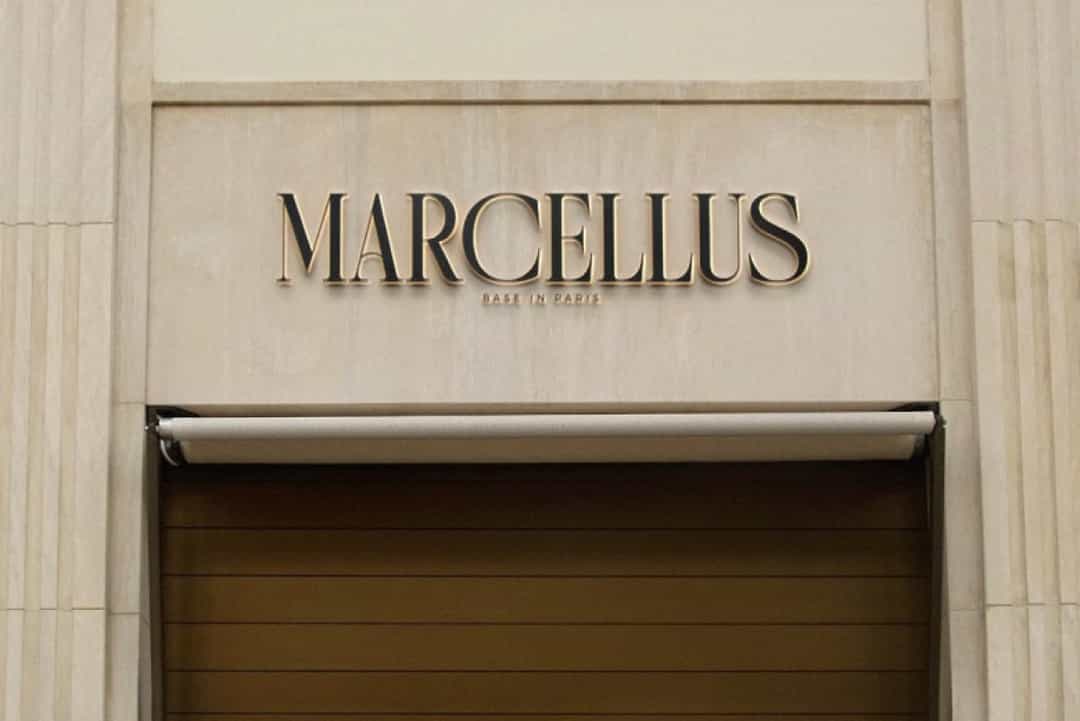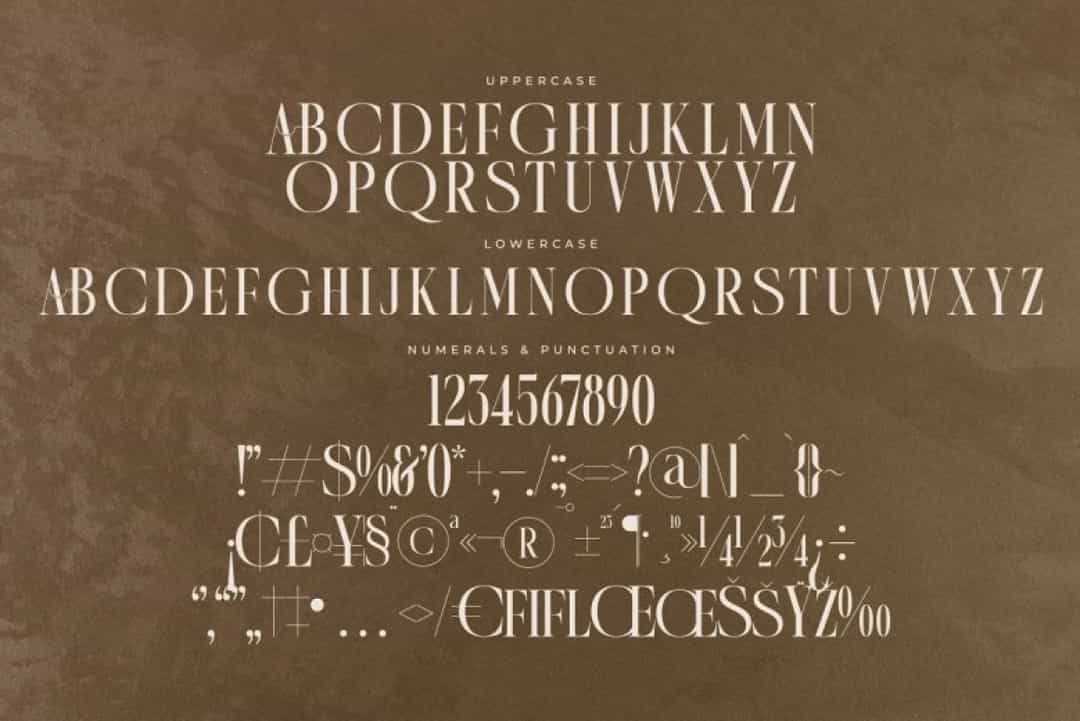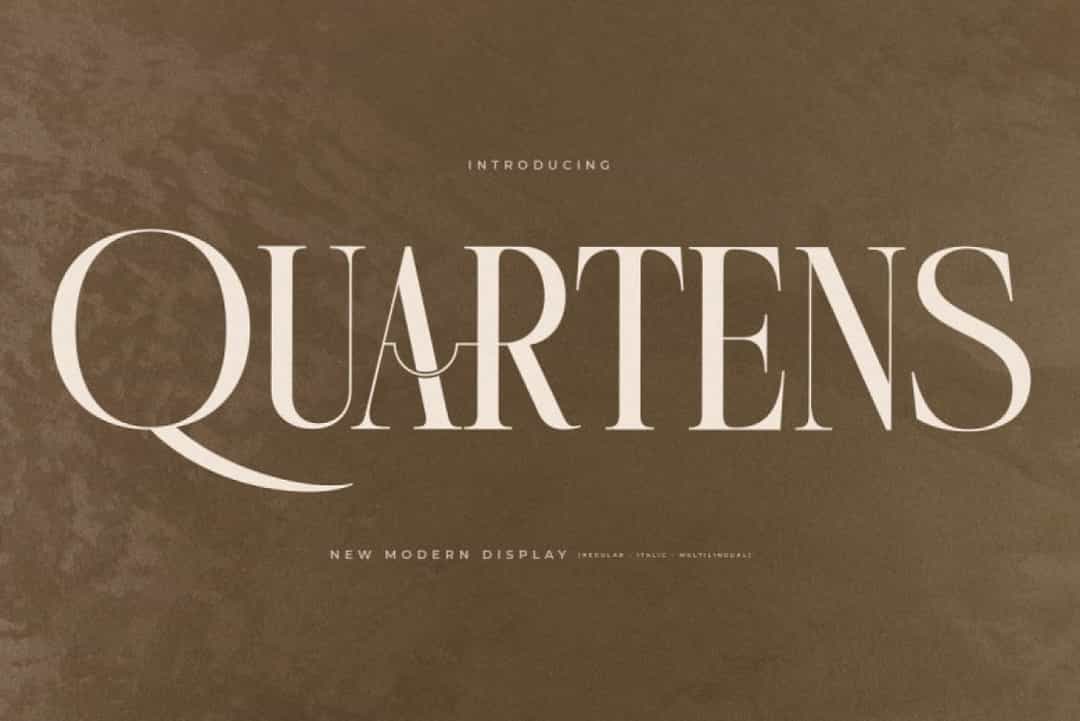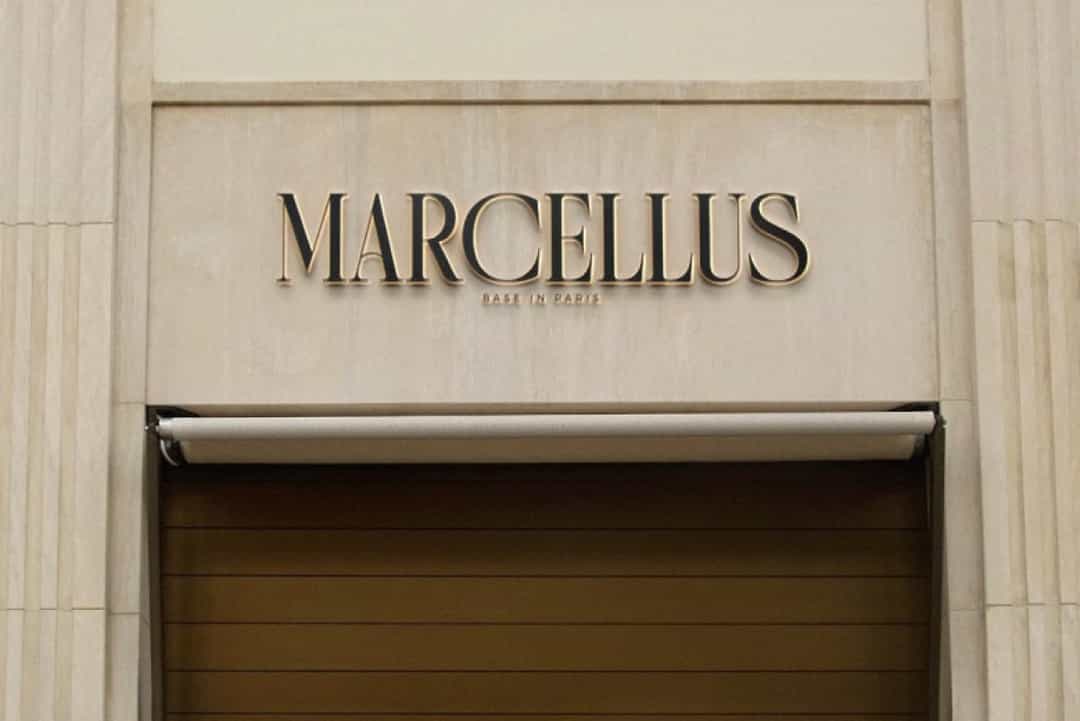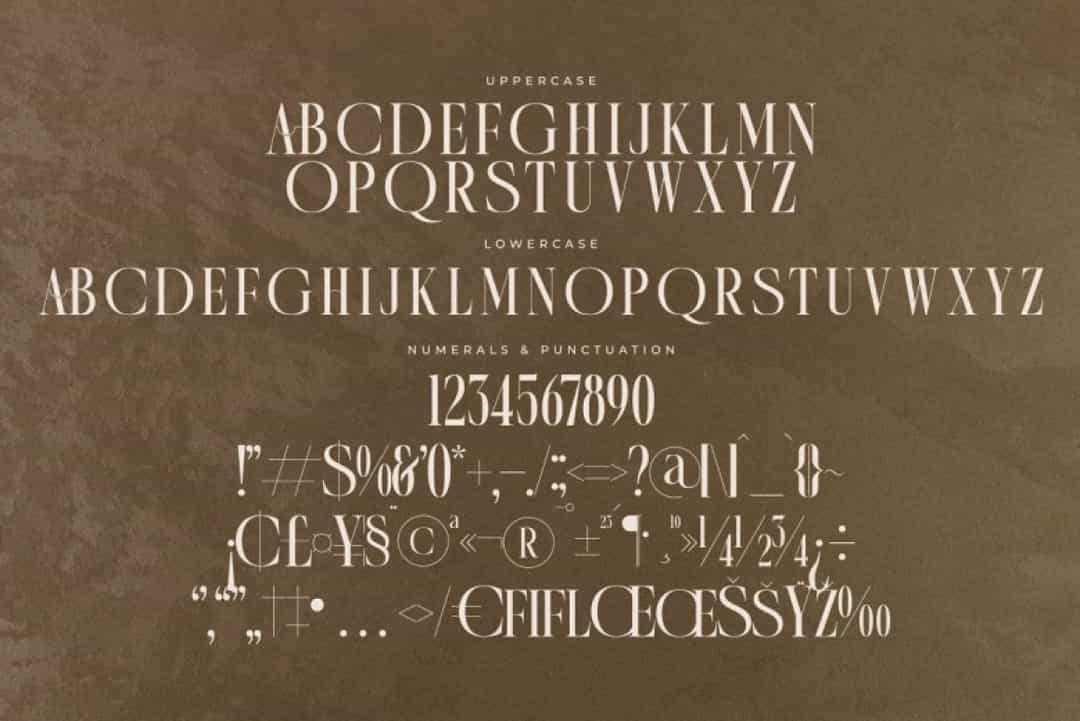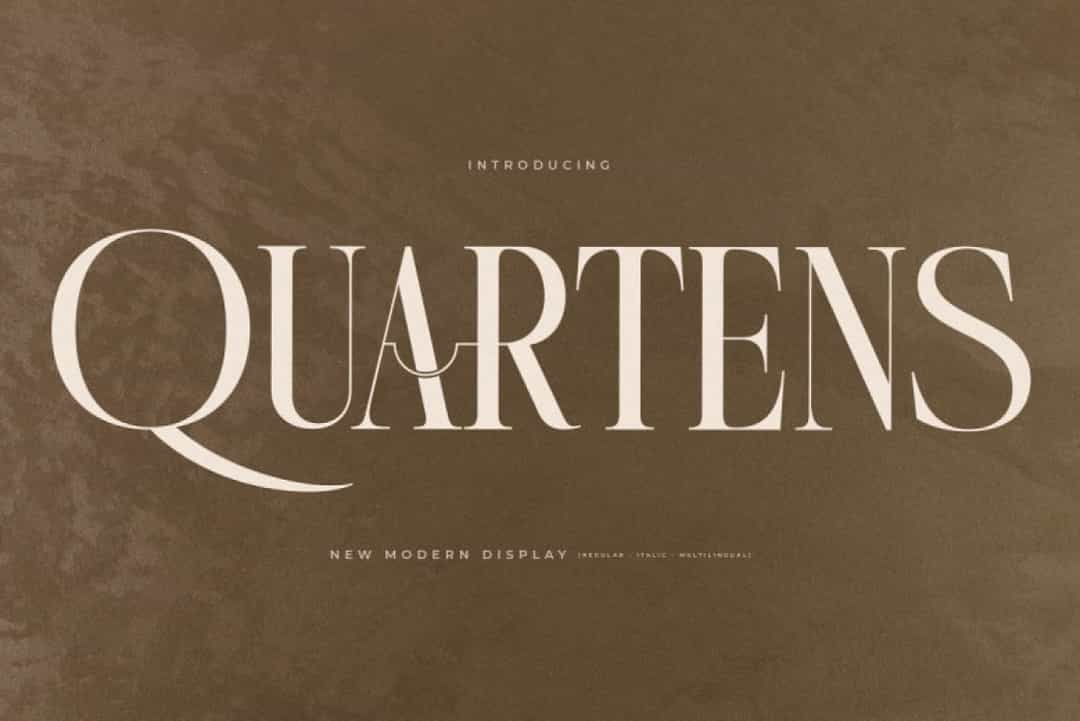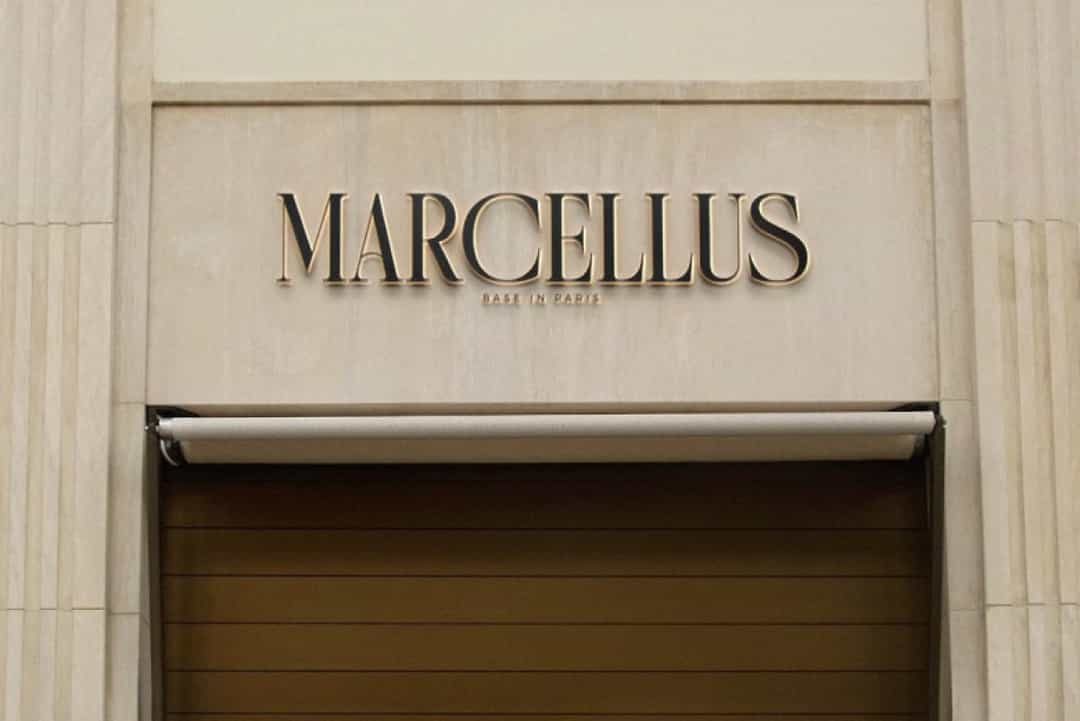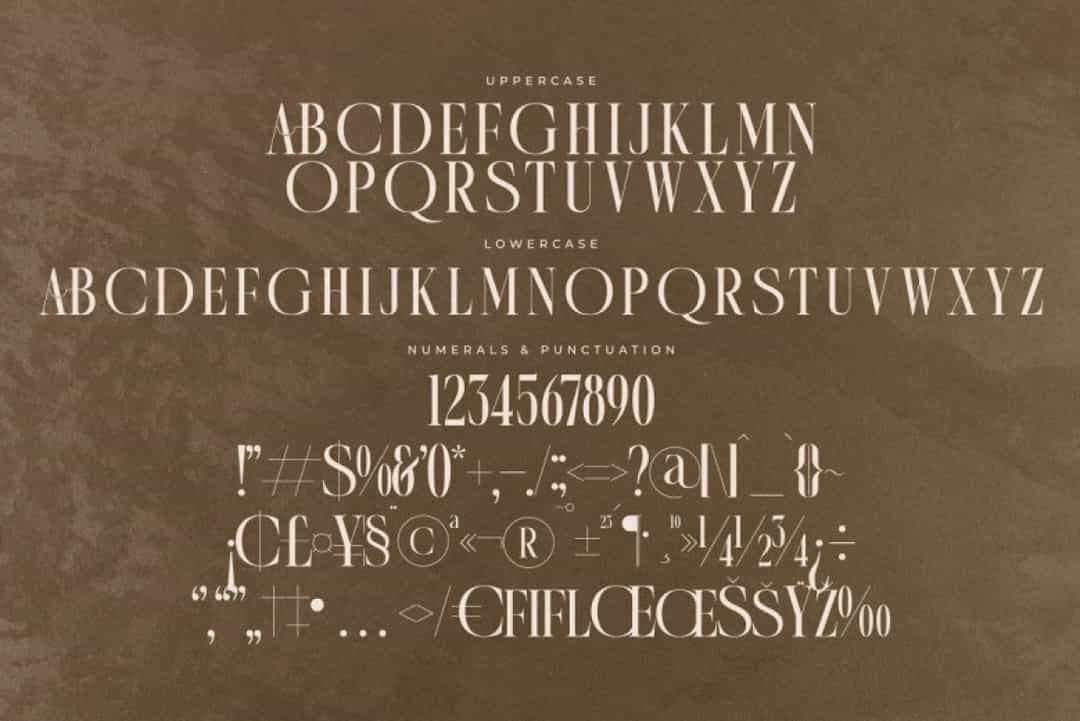
Quartens is a modern and contemporary display serif font with its own distinct style and look, perfect for sophisticated logos, movie or book titles, fashion labels, magazine letters, quotes and much more.